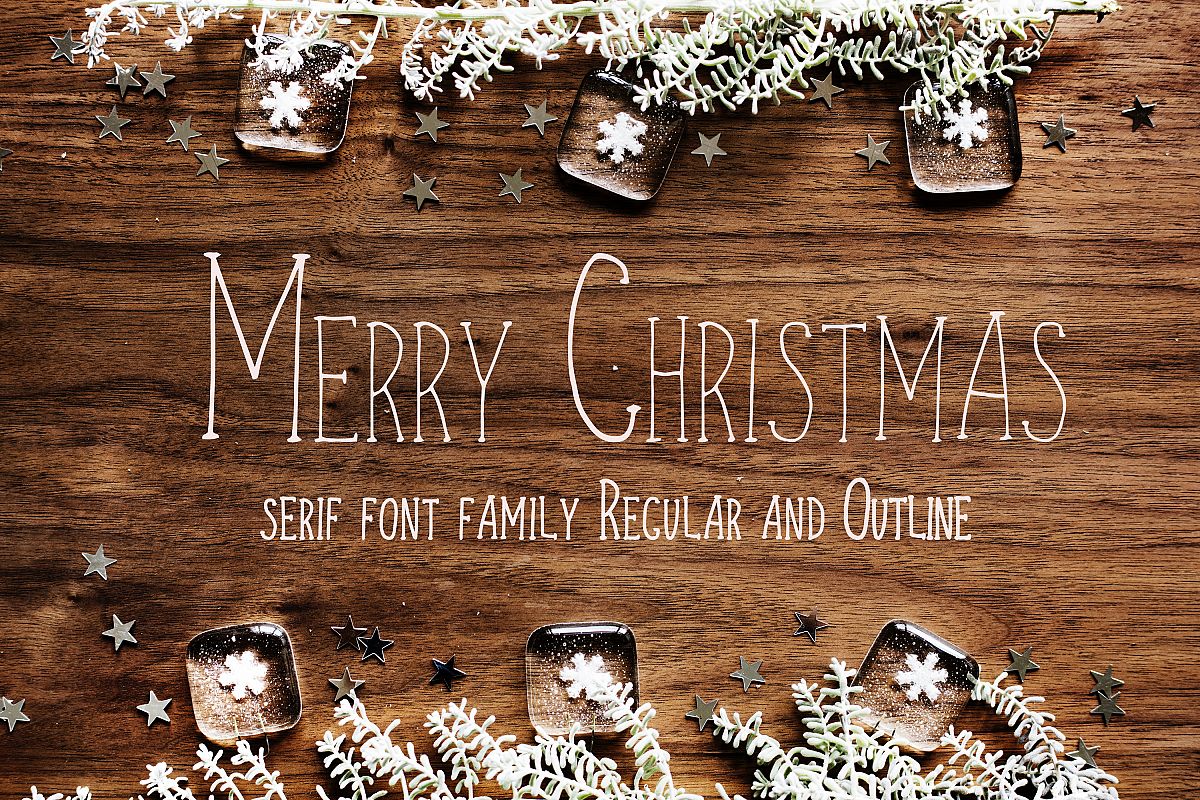
Merry Christmas display font and doodles
Merry Christmas display font comes in 2 styles: Outline, Regular. It's perfect for design projects, instagram, invitations, logos, letterpress address, titles, birthday invitations, branding, packaging, magazines, florist shops, social media, restaurantMerry Christmas Extras are Christmas themed hand drawn elements/doodles. perfect for creating greeting cards, photo overlays, scrapbooking, writing letters and just for fun :)YOU WILL RECEIVE: